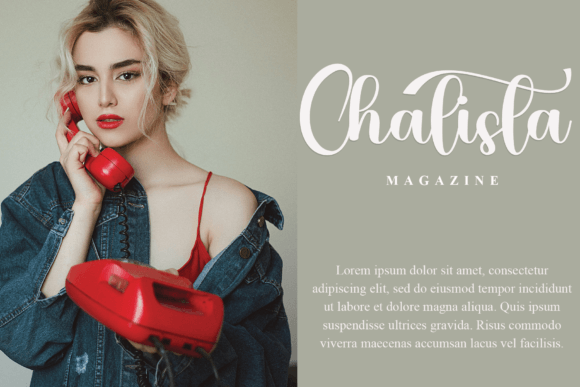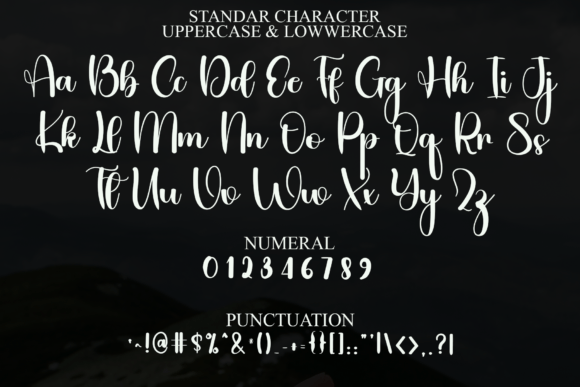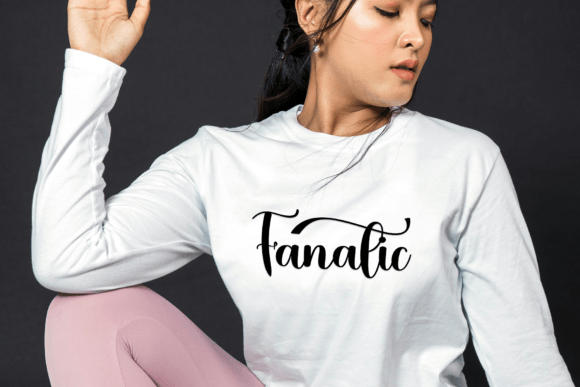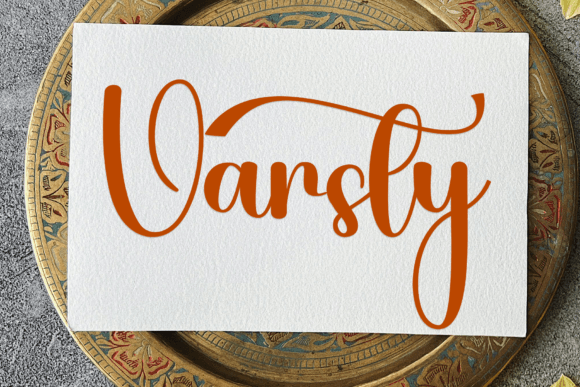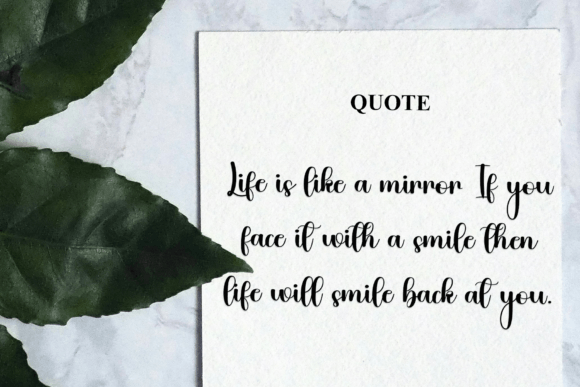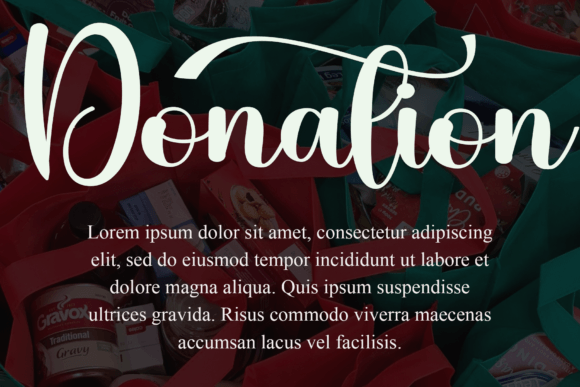
The Power of Charity Font: Adding a Touch of Whimsy to Your Designs
When it comes to creating visually appealing designs, typography plays a crucial role. A well-chosen font can elevate your project from ordinary to extraordinary. If you’re looking for a font that exudes warmth and personality, look no further than Charity Font. In this article, we’ll explore the unique features of Charity Font and how it can add a touch of whimsy to your designs.
What is Charity Font?
Charity Font is a charming handwritten font that is perfect for designers and crafters looking to add a personal touch to their projects. With its playful yet legible style, this font is ideal for a variety of applications, including greeting cards, invitations, and branding. The font’s natural strokes and irregularities give it a handmade authenticity that is sure to capture the hearts of your audience.
Unique Features of Charity Font
So, what sets Charity Font apart from other fonts? Here are a few of its unique features:
- Handwritten style: Charity Font has a warm and inviting handwritten style that adds a personal touch to any project.
- Playful yet legible: The font’s playful style is balanced with legibility, making it perfect for use in a variety of applications.
- Natural strokes and irregularities: The font’s natural strokes and irregularities give it a handmade authenticity that is sure to capture the hearts of your audience.
Uses of Charity Font
Charity Font is a versatile font that can be used in a variety of applications. Here are a few ideas to get you started:
- Greeting cards: Add a personal touch to your greeting cards with Charity Font.
- Invitations: Make your invitations stand out with the font’s playful and whimsical style.
- Branding: Use Charity Font to add a touch of personality to your brand’s marketing materials.
- Stationery: Create custom stationery with Charity Font that is sure to impress.
Benefits of Using Charity Font
So, why should you choose Charity Font for your next project? Here are a few benefits of using this charming font:
- Adds a personal touch: Charity Font’s handwritten style adds a personal touch to any project.
- Stand out from the crowd: The font’s unique style is sure to make your project stand out from the crowd.
- Easy to read: Despite its playful style, Charity Font is easy to read and understand.
Tips for Using Charity Font
Here are a few tips for using Charity Font in your designs:
- Use it sparingly: While Charity Font is a beautiful font, it can be overwhelming if used too much. Use it sparingly to add a touch of whimsy to your design.
- Pair it with other fonts: Pair Charity Font with other fonts to create a unique and visually appealing design.
- Experiment with colors: Experiment with different colors to find the perfect combination for your design.
In conclusion, Charity Font is a charming handwritten font that is perfect for designers and crafters looking to add a personal touch to their projects. With its playful yet legible style, this font is ideal for a variety of applications, including greeting cards, invitations, and branding. Whether you’re looking to add a touch of whimsy to your design or create a unique and visually appealing project, Charity Font is a great choice.